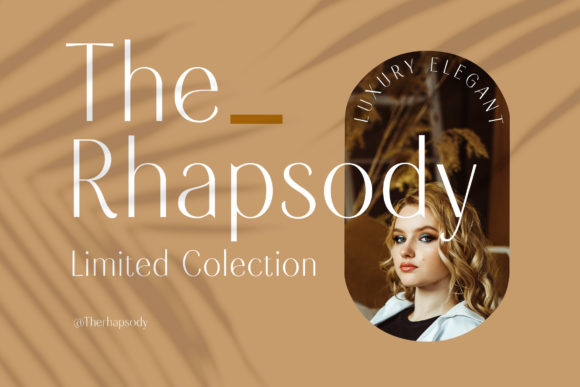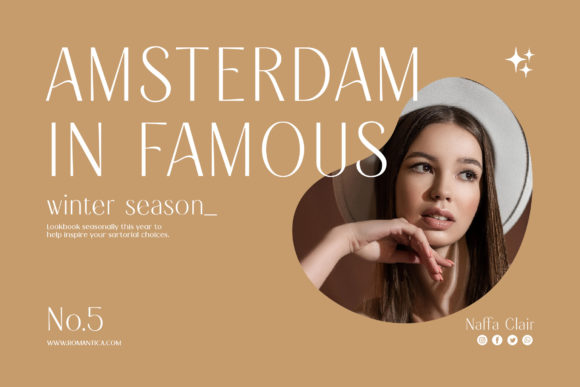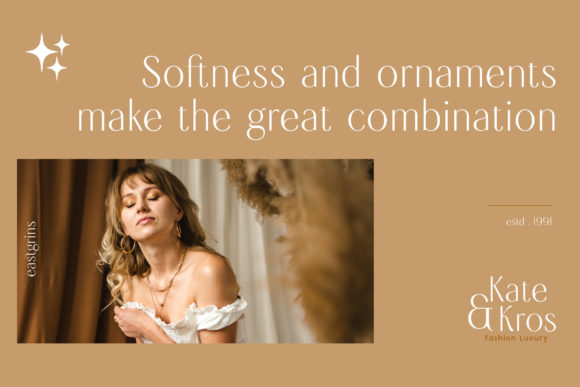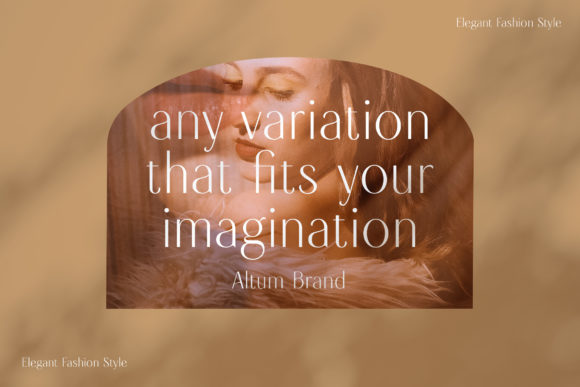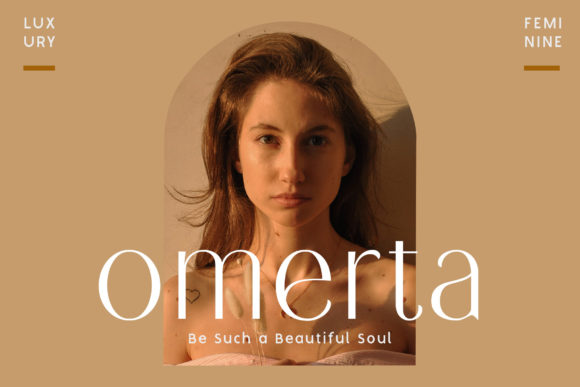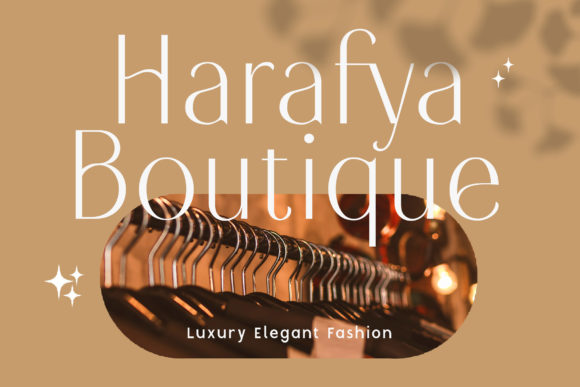
Discover the Elegance of Eastgrins Font: A Minimal Sans Serif for Every Occasion
In the world of typography, finding the perfect font that combines elegance with simplicity can be a daunting task. However, if you’re on the hunt for a typeface that can elevate your designs with its neat and straightforward style, look no further than Eastgrins Font. This minimal, yet elegant sans serif font has been making waves in the design community for its versatility and aesthetic appeal.
What Makes Eastgrins Font Stand Out?
Eastgrins is not just another font; it’s a design staple that can transform your projects with its clean lines and uncomplicated style. Its minimalistic approach to design makes it incredibly versatile, suitable for a wide variety of projects ranging from branding and advertising to web design and crafting. Whether you’re working on a sleek corporate logo or a whimsical craft project, Eastgrins has the potential to become your go-to font.
The Characteristics of Eastgrins Font
- Minimalist Design: Eastgrins boasts a minimalist design that focuses on simplicity and clarity. Its uncluttered and straightforward style ensures that your message is conveyed effectively without any distractions.
- Elegant Aesthetic: Despite its minimalistic approach, Eastgrins exudes an air of elegance that can add a touch of sophistication to any design. Its clean lines and well-proportioned letterforms make it a perfect choice for designs that require a bit of refinement.
- Versatility: One of the key strengths of Eastgrins is its versatility. It can seamlessly integrate into various design projects, including but not limited to, logos, brochures, websites, and craft projects.
- Readability: Eastgrins is designed with readability in mind. Its clear and simple letterforms ensure that your content is easily readable, making it an excellent choice for both digital and print media.
Who Can Benefit from Using Eastgrins Font?
Eastgrins Font is a valuable asset for a wide range of designers and crafters. Here are a few groups who can particularly benefit from incorporating Eastgrins into their workflow:
- Graphic Designers: Graphic designers looking for a font that can add a touch of elegance and professionalism to their designs will find Eastgrins to be an excellent choice.
- Web Designers: With the increasing importance of user experience (UX) in web design, Eastgrins’ readability and clean design make it a perfect fit for websites and digital applications.
- Crafters and Makers: Crafters and makers who create handmade products and need a font that can translate their brand’s simplicity and elegance into a visual identity will love Eastgrins.
- Marketing and Branding Professionals: For those working in marketing and branding, Eastgrins offers a way to create a cohesive and sophisticated brand image that can appeal to a wide audience.
How to Use Eastgrins Font Effectively
To make the most out of Eastgrins Font, consider the following tips:
- Pair it with Other Fonts: While Eastgrins is elegant on its own, it can also be paired with other fonts to create a more dynamic design. Look for fonts that complement its minimalistic style.
- Experiment with Sizes and Weights: Don’t be afraid to experiment with different sizes and weights of Eastgrins to add hierarchy and depth to your designs.
- Consider the Context: Think about the context in which your design will be used. Eastgrins’ simplicity makes it adaptable to various mediums, from digital screens to print materials.
Eastgrins Font is more than just a typeface; it’s a design companion that can help you create stunning visuals with ease. Its minimalist yet elegant design, coupled with its versatility and readability, makes it an excellent choice for designers and crafters alike. Whether you’re working on a professional project or a personal craft, Eastgrins has the potential to elevate your designs and make them stand out. So, why not give Eastgrins a try and see how it can transform your designs?